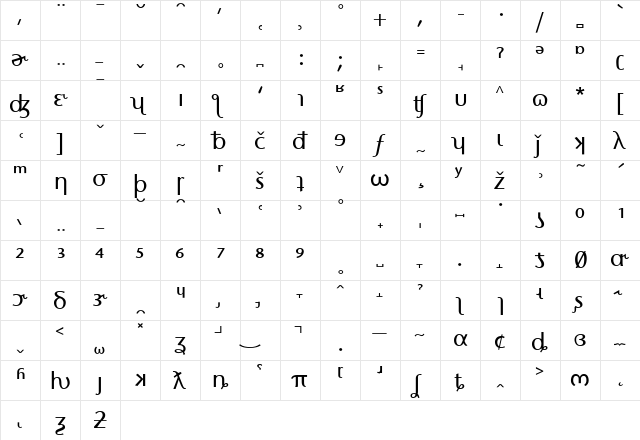
Stone Sans PhoneticAlternate Regular
Design Context for Stone Sans PhoneticAlternate Typeface
Stone Sans PhoneticAlternate takes a measured approach to typography — its balanced proportions and neutral character make it a reliable workhorse for both digital and print work.